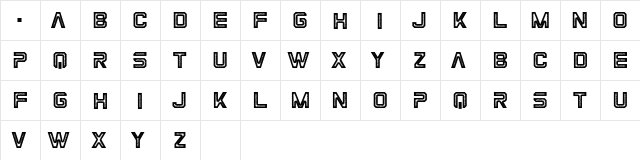
Space Mavericks Regular
| Foundry | Font Monger |
| Designer | Chris Vile |
Design Context for Space Mavericks Typeface
Space Mavericks is a composed and adaptable typeface that performs quietly and consistently across a wide range of design contexts.